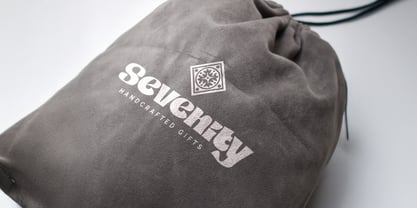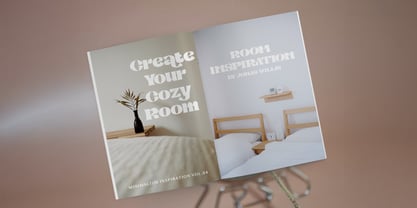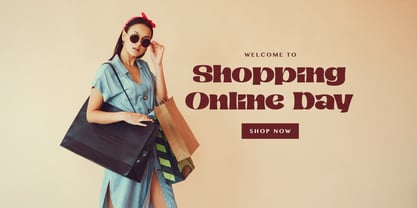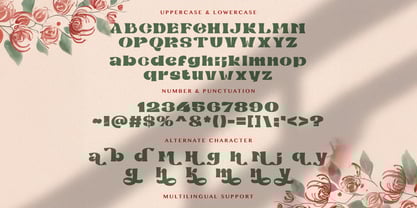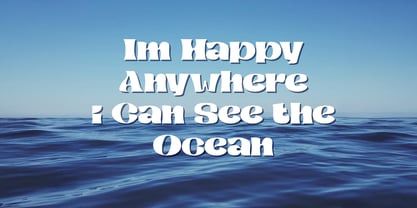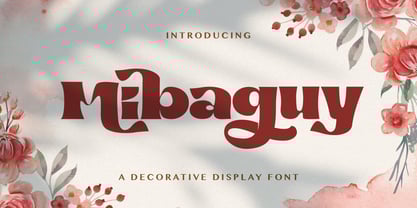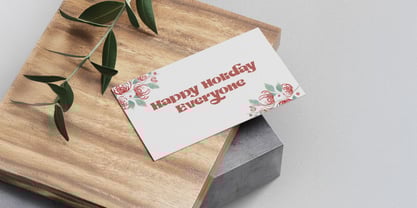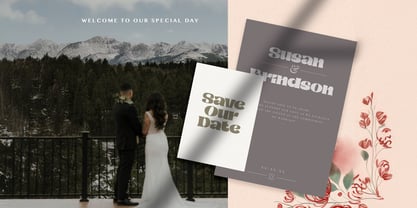
The Mibaguy Font Family was designed by Virgiawan Listanto and published by Stringlabs Creative Studio. Mibaguy contains 1 styles. More about this family
Mibaguy is a decorative display font with a unique and artistic style, designed to capture attention and add personality to your projects. Its bold strokes and creative letterforms make it ideal for posters, logos, headlines, packaging, and event designs. With its stylish curves and standout details, Mibaguy delivers both charm and versatility, ensuring your typography feels fresh, expressive, and memorable in every creative use.